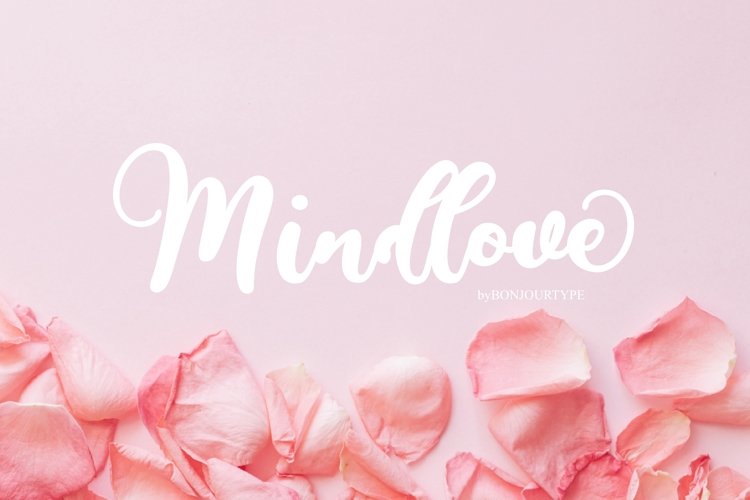
Mindlove
Mindlove DF
Mindlove Script is is a beautiful and unique typeface with a great variety of elegant swashes! . It includes amazing swashes which will add an elegant touch to your designs.
It’s suitable for greeting cards, quotes, invitations, printable, such as posts, signatures, logos, wedding invitations, t-shirts, letterhead, signage, labels, news, social media, posters etc.